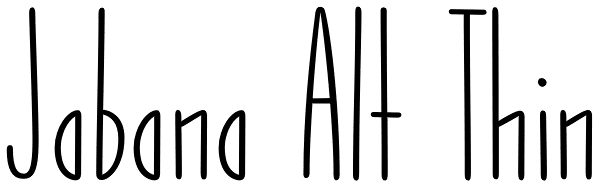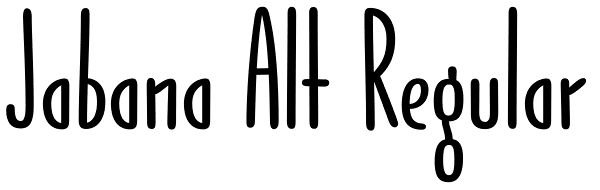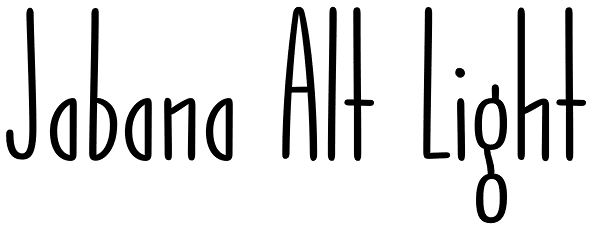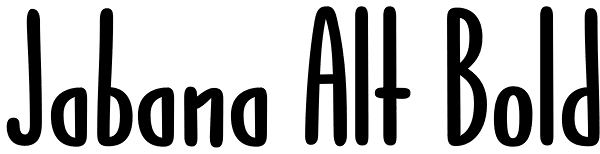
Jabana Alt
Jabana Alt is the much more standard looking brother of “Jabana” . Each letter is altered and changed. But you can also use it for coffee and more. Because it is inspired by having a “Schorle” at Hamburgs coffee bars. Super compressed and extended...